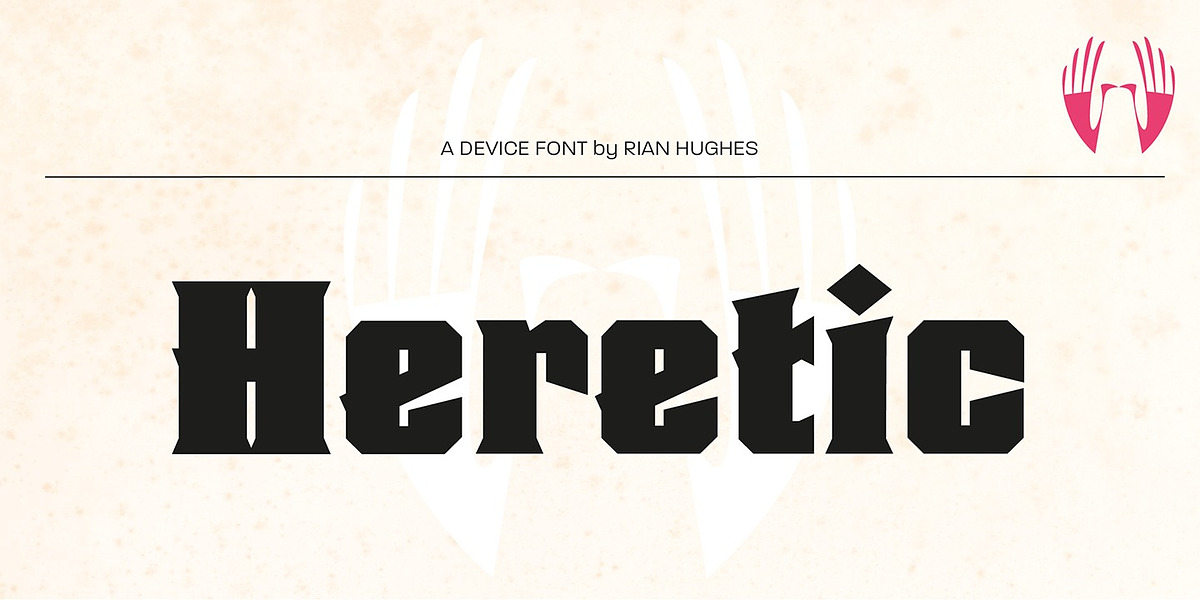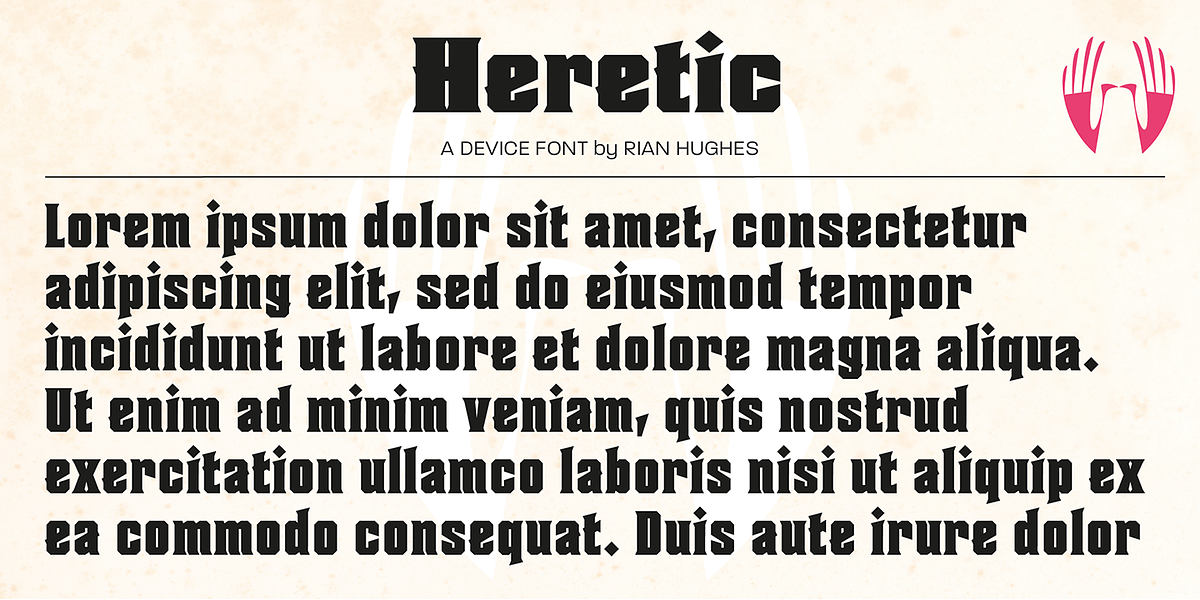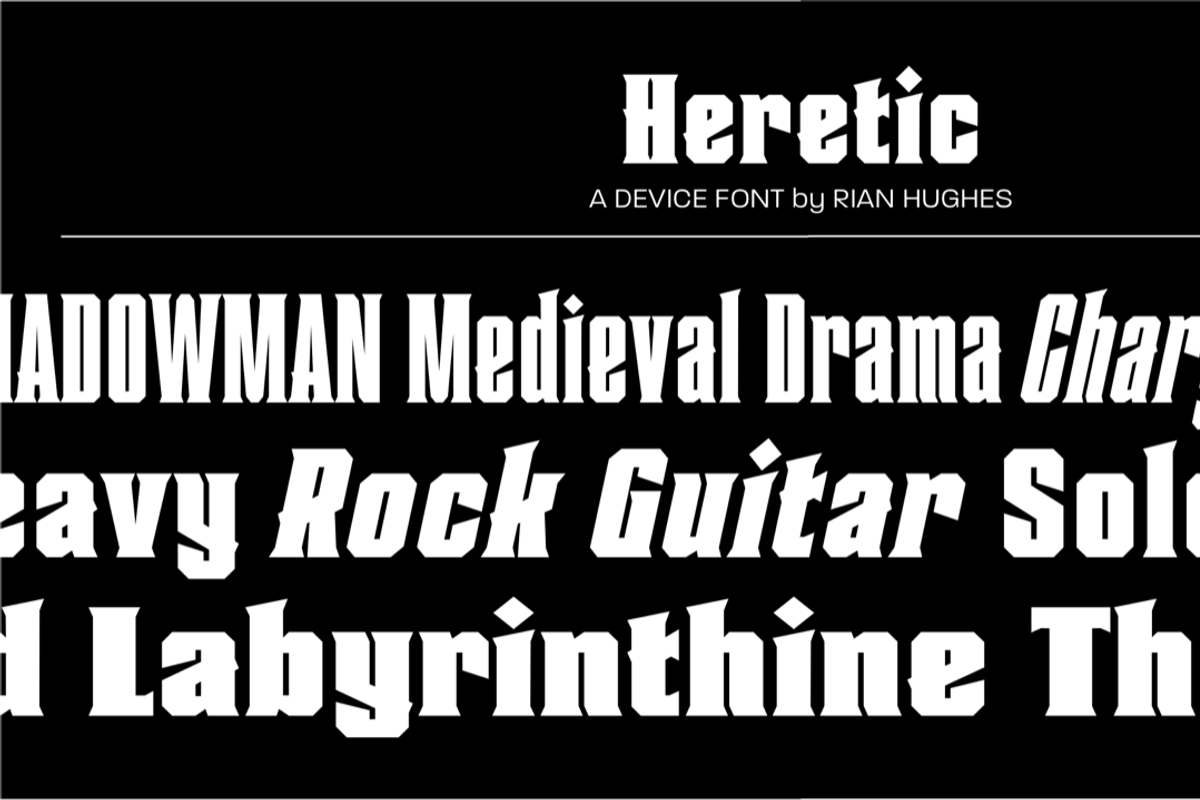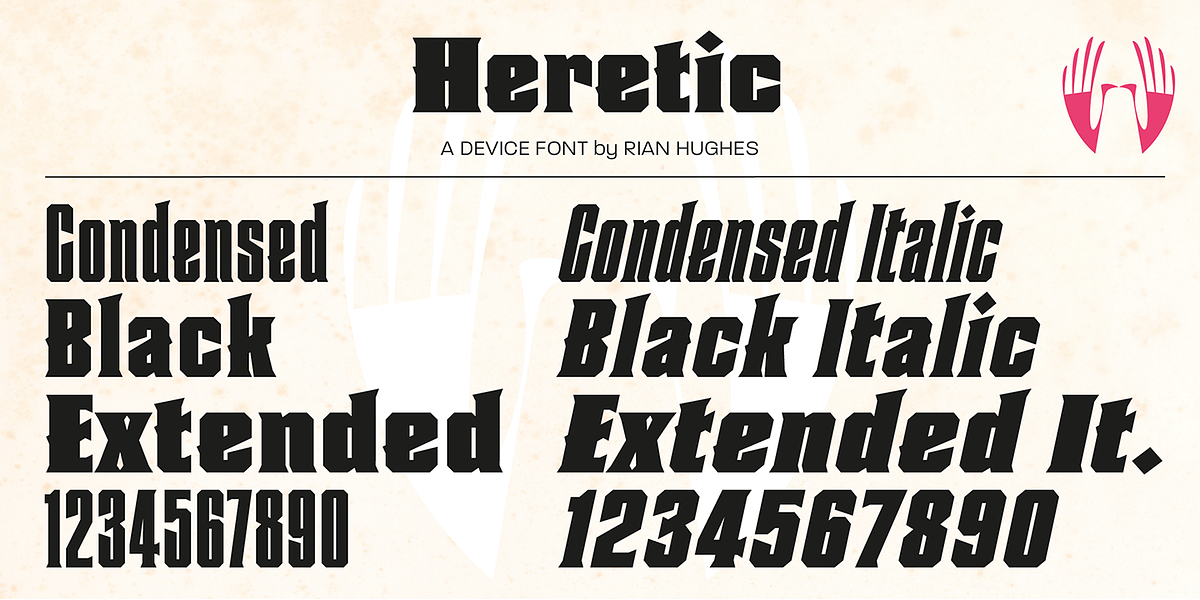
Heretic
Heretic is a blackletter font with a distinct historical feel. Its bold and condensed design evokes images of medieval manuscripts and gothic architecture. The font's angular strokes and ornate details contribute to its unsettling and sinister aesthetic.